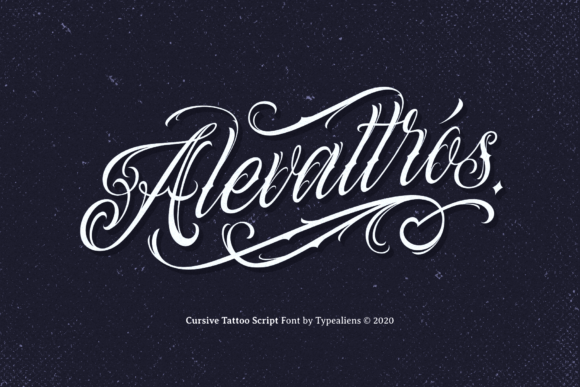
Dive into the captivating world of Alevattros, a script font family that will ignite your creativity and transform your designs into stunning works of art. Inspired by the bold and captivating aesthetic of tattoos, Alevattros is a true masterpiece crafted by the renowned TypeAliens. Each stroke and curve of this font exudes a raw, rebellious energy, ready to make a statement in any project you envision.
Unleash your imagination and let Alevattros guide you on an artistic journey. Whether you're a seasoned designer or just starting to explore the world of typography, this font will empower you to create designs that resonate with authenticity and leave a lasting impact. Its versatility knows no bounds, seamlessly adapting to a wide range of styles, from edgy and urban to elegant and sophisticated.
With Alevattros at your disposal, your designs will transcend the ordinary and become extraordinary. Experience the thrill of creating logos that demand attention, posters that captivate the eye, and social media graphics that ignite engagement. This font is your passport to a world of endless possibilities, where your creativity will soar to new heights.
Don't settle for the mundane; embrace the extraordinary with Alevattros. Let its bold strokes and captivating curves ignite your passion for design and transform your projects into unforgettable masterpieces. Embrace the art of rebellion, express your individuality, and let Alevattros be your guide on this thrilling creative adventure.